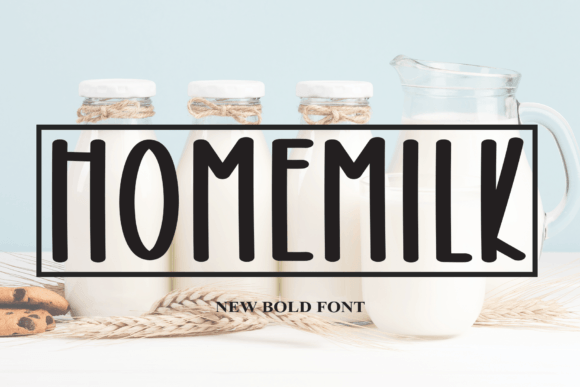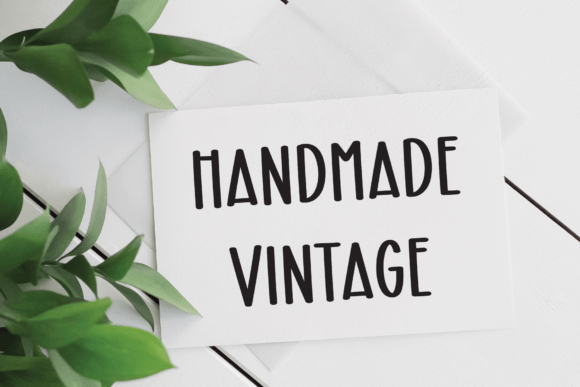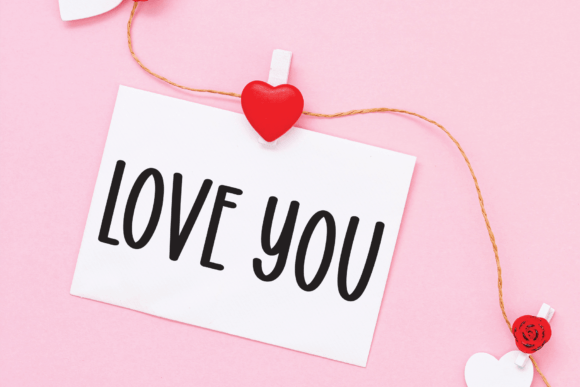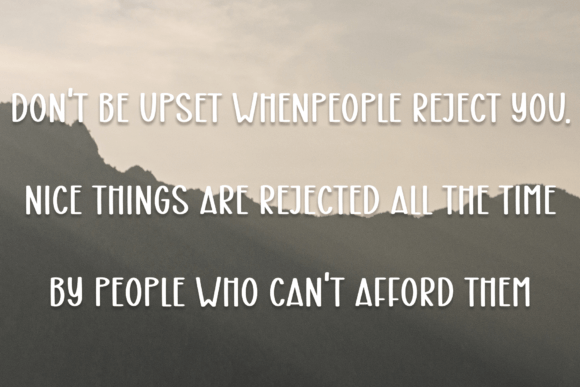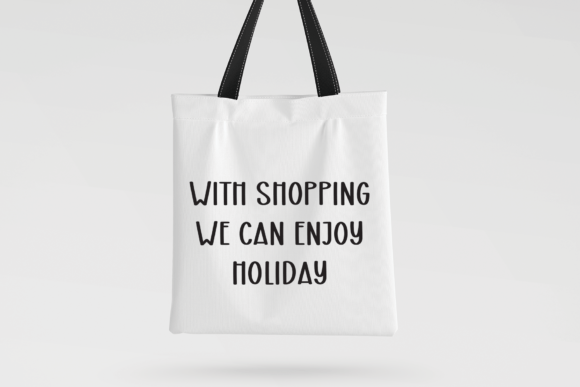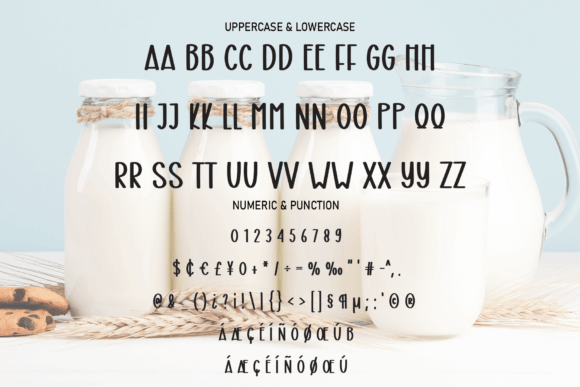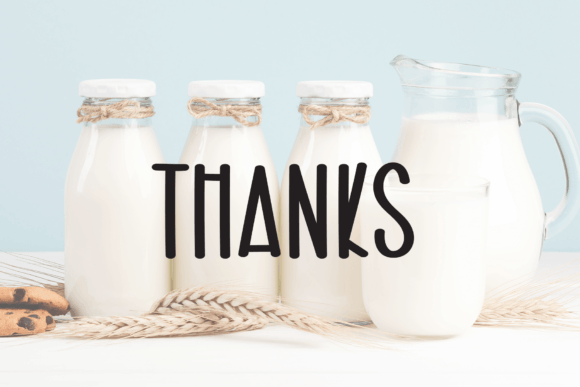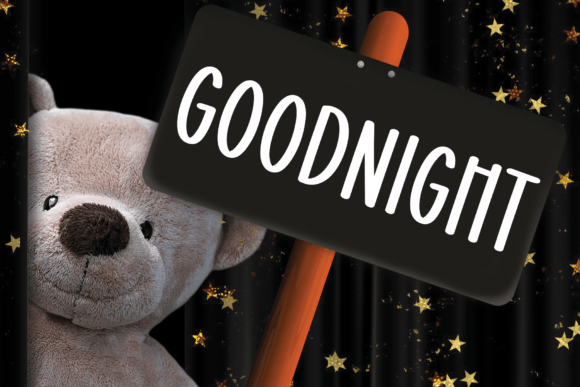
Homemilk Font
Homemilk is a striking all-caps display font that embodies boldness with just the right touch of trendiness. Its impactful design makes it an ideal choice for a variety of creative applications, whether you’re engaged in crafting, digital design, presentations, or greeting card making.
The boldness of Homemilk makes it stand out, particularly when used for headlines, titles, or any element that requires a commanding presence. Its all-caps structure ensures a strong and assertive visual impact, making it perfect for projects that demand attention.
Crafters will find Homemilk to be a valuable asset, adding a contemporary and stylish element to their creations. The font’s bold and trendy aesthetic enhances the overall visual appeal, making it a versatile choice for a range of handmade and DIY projects.
In the realm of digital design, Homemilk brings a modern flair to websites, social media graphics, and various digital platforms. Its trendiness ensures that your designs stay current and eye-catching, providing a visually impactful element to your digital presence.
For presentations, Homemilk serves as an excellent choice for headlines and key points, contributing to a dynamic and visually engaging layout. The font’s bold characteristics make it easy to convey messages with confidence and style.
Greeting card makers can leverage Homemilk to infuse contemporary charm into their designs. The font’s trendiness adds a touch of modernity to personalized messages, making it a perfect choice for expressing sentiments with flair.
In essence, Homemilk is not just a font; it’s a design tool that adapts to a variety of creative endeavors. Whether you’re crafting, designing digitally, presenting, or creating greeting cards, let Homemilk be the font that adds the perfect blend of boldness and trendiness to your projects.